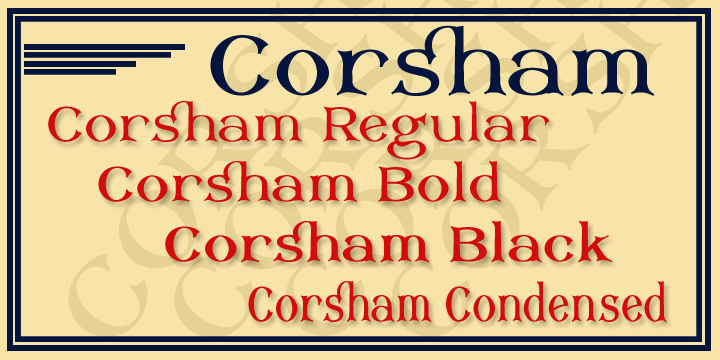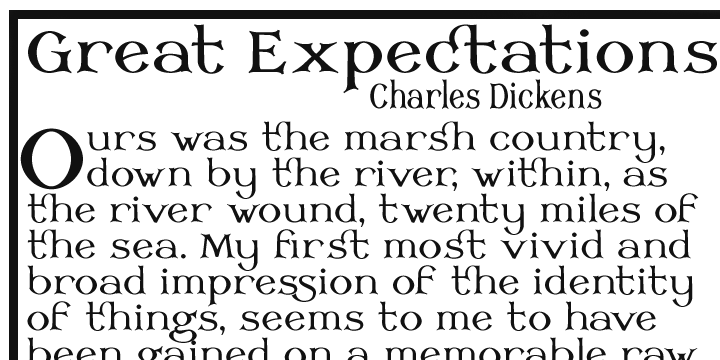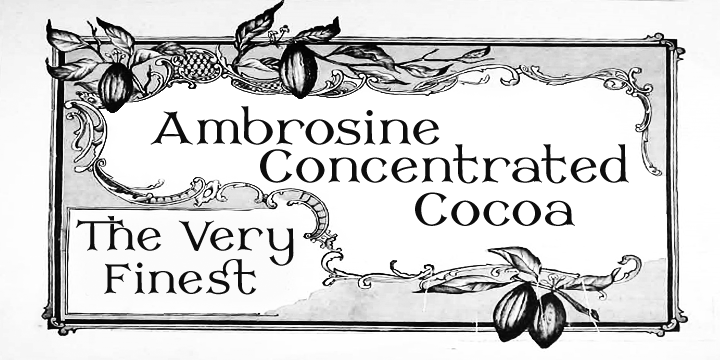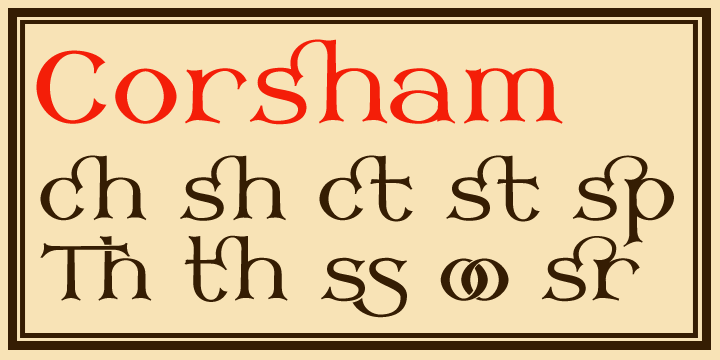
Corsham is a historical and western font family. This typeface has four styles and was published by Greater Albion Typefounders.
Corsham was inspired by traditional stonemason’s engraved lettering designs. Designed to be used alone, or in combination with our Corton family, ithas wonderfully lively air, with distinctive lively serifs and beautifully swashed downstrokes. Four faces are offered-regular bold and black weights as well as a condensed form. All faces include a range of Opentype features, including ligatures and old-style numerals. The Corsham faces merge ‘olde-worlde’ charm with fun character, yet remaining clear and legible for text use.